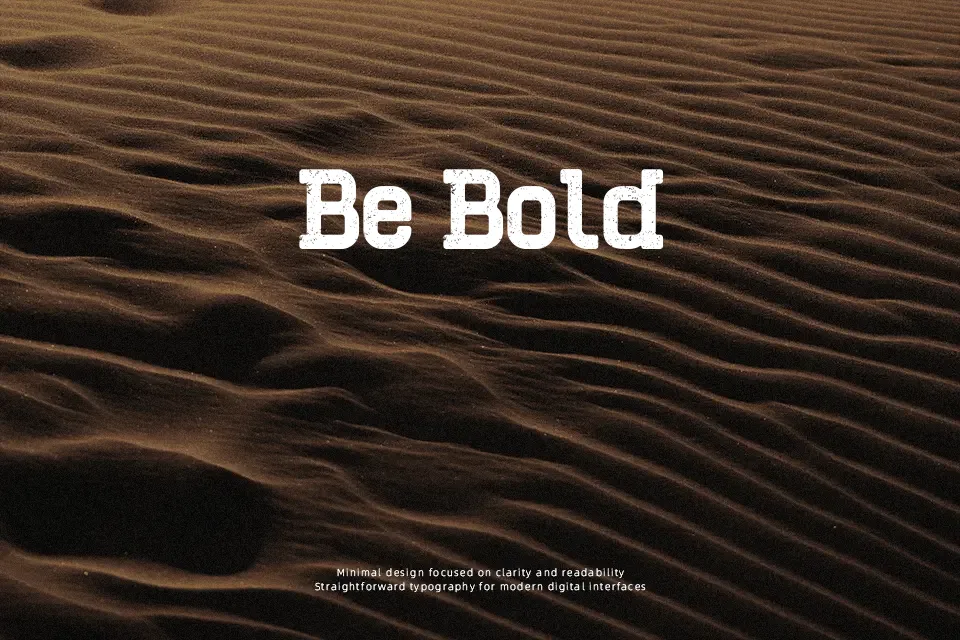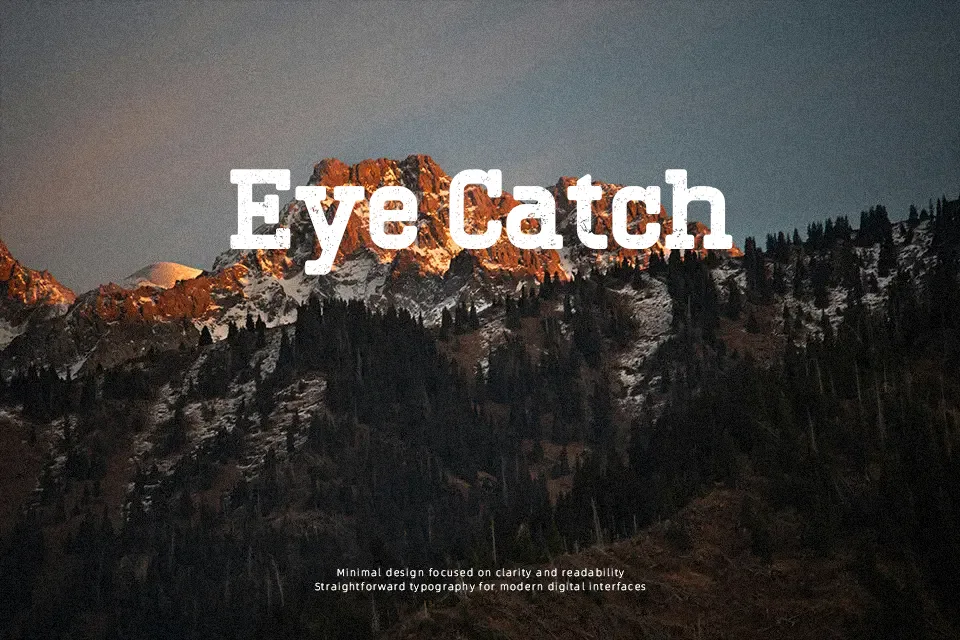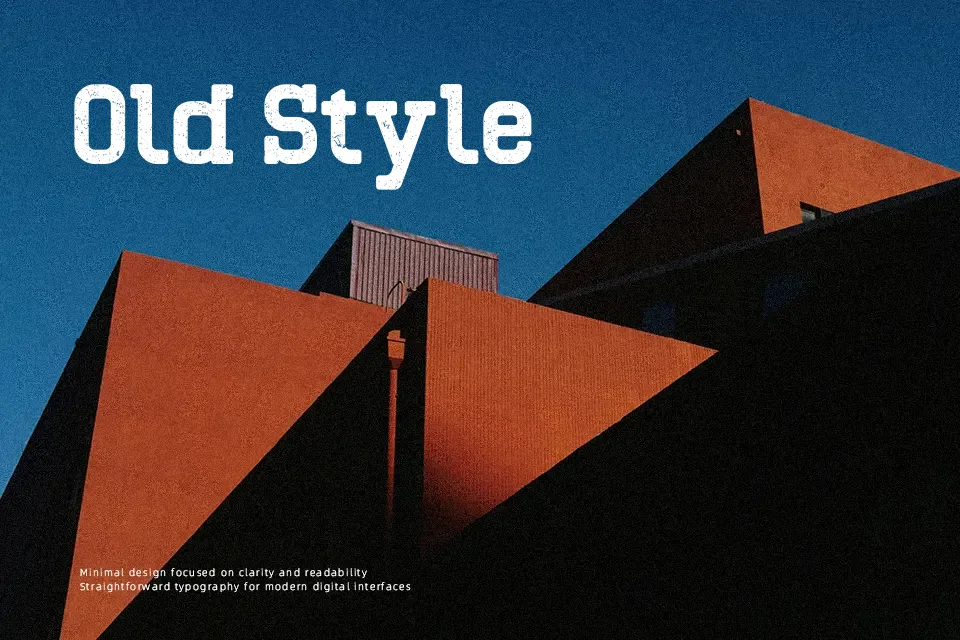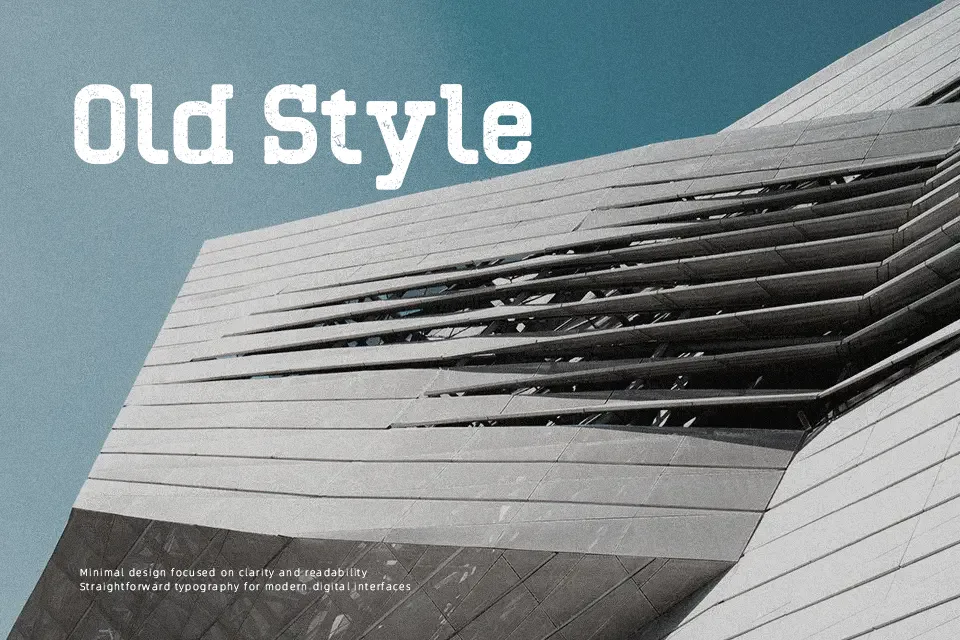
Ranmor Font
Ranmor Font performs best when displayed at larger sizes where its carefully distressed details can be fully appreciated. Structured as a sturdy slab serif, this typeface features thick strokes and well-balanced proportions that give it a commanding presence. The rugged texturing across each letterform creates an authentic vintage aesthetic. Because of the heavy distress marks and block-like structure, spacing feels compact but remains highly legible in short bursts. The solid letterforms maintain strong visibility in prominent display text, making the design highly effective for rugged apparel graphics and rustic branding. However, these dense, eroded forms reduce comfort during extended reading, rendering it less suitable for long paragraphs or small body copy.
vintage product packaging
rustic apparel graphics
coffee shop menu headers